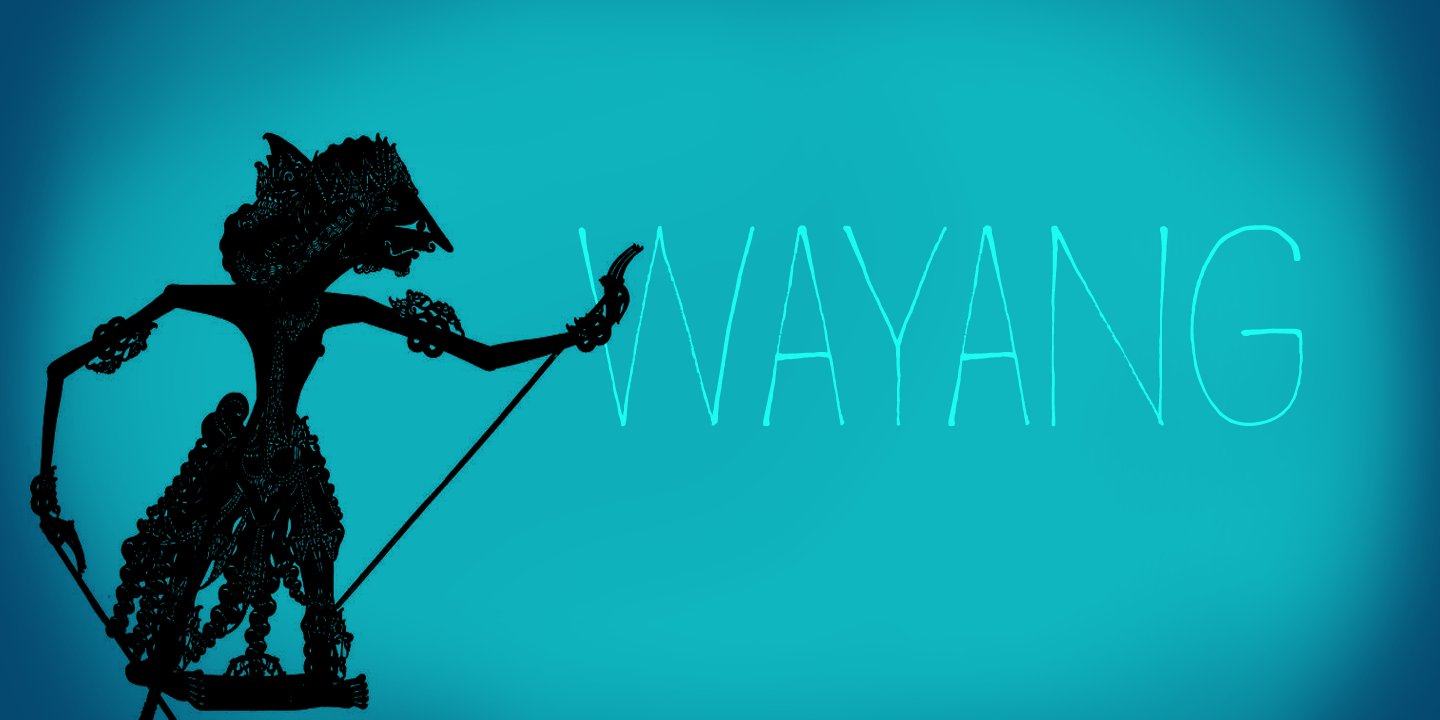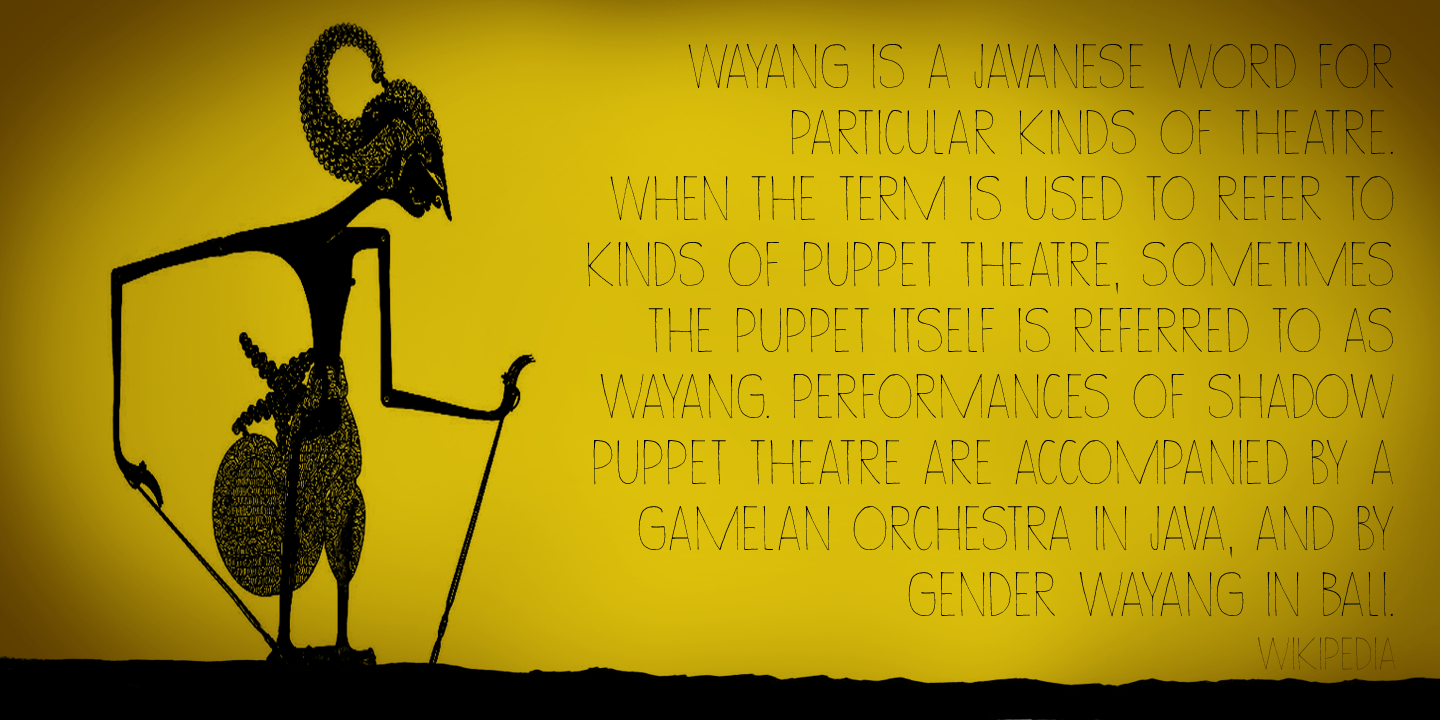
Wayang
Wayang font was named after the beautiful shadow puppets from Indonesia. The font was hand made, using a bamboo pen and Chinese ink on rough, eco-friendly Italian paper. Wayang is spiky, ultra-thin, yet extremely legible. It comes with extensive language support.